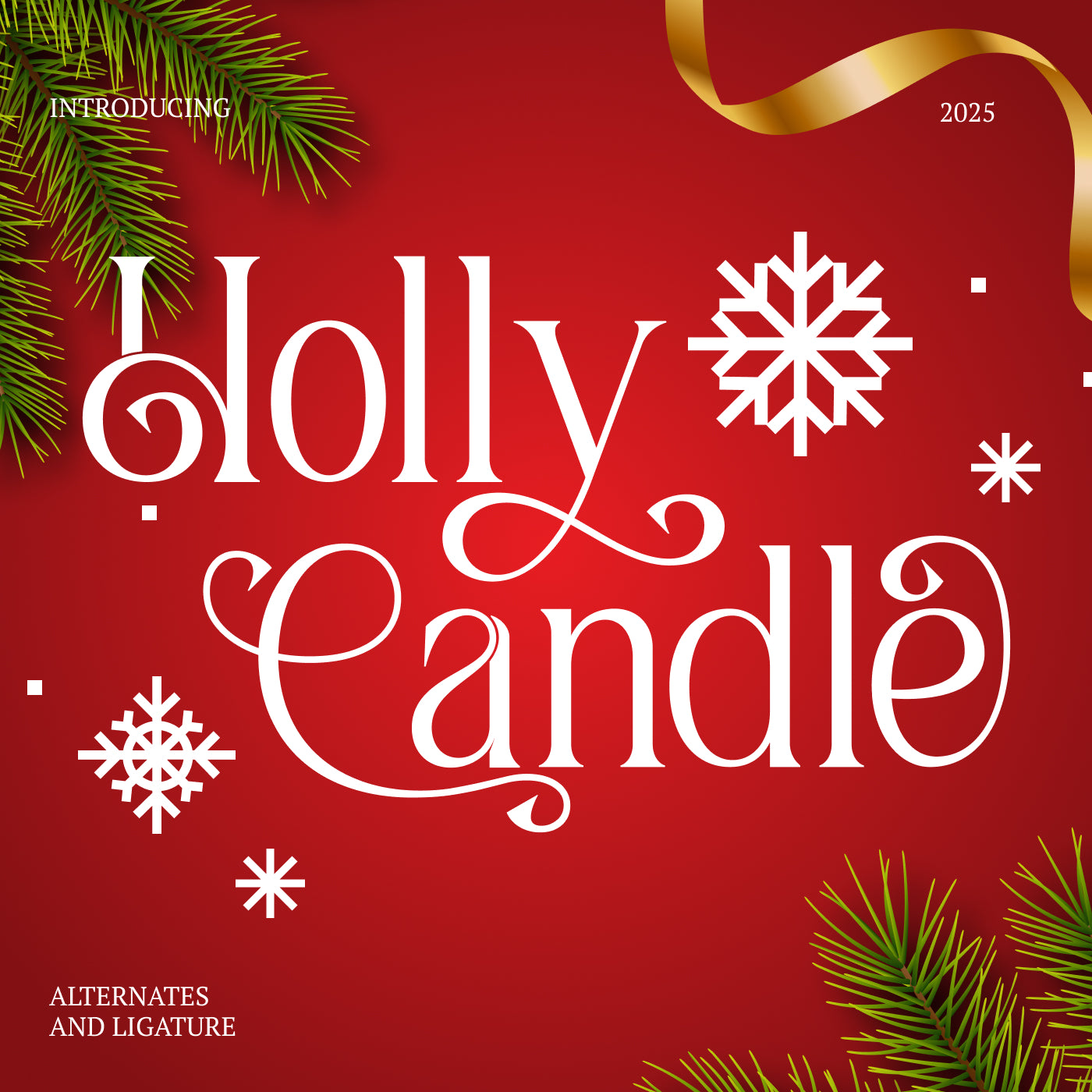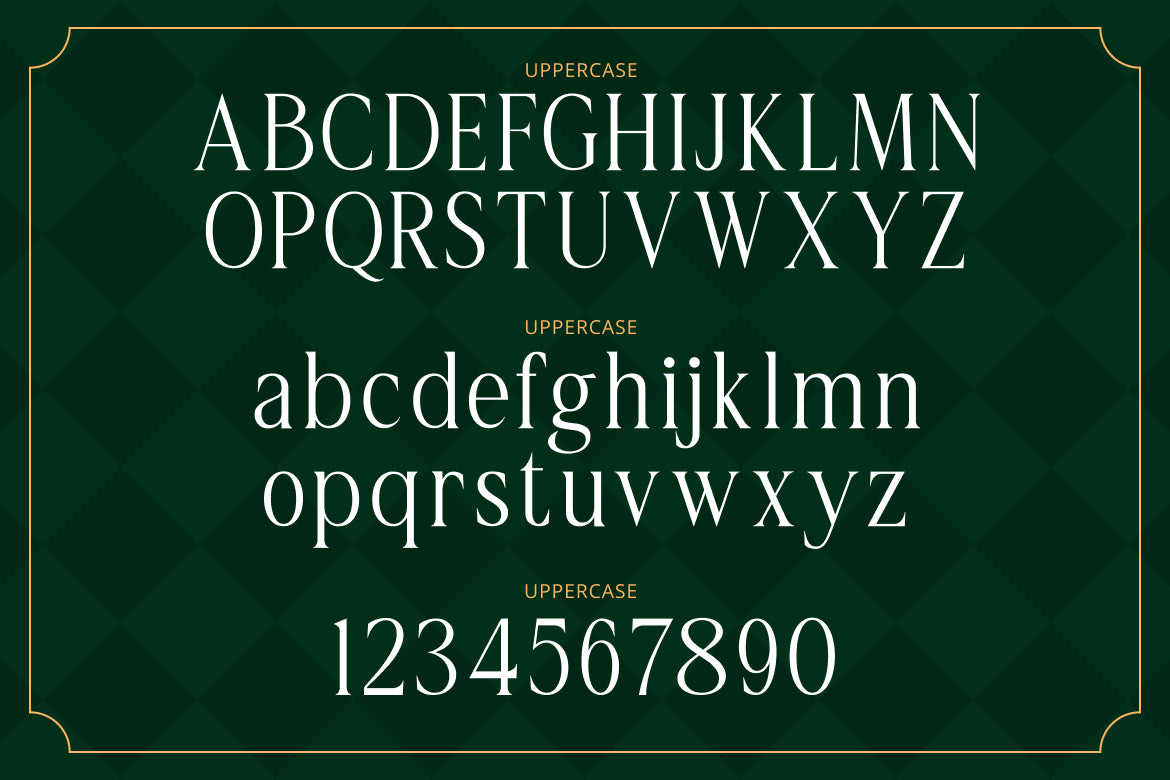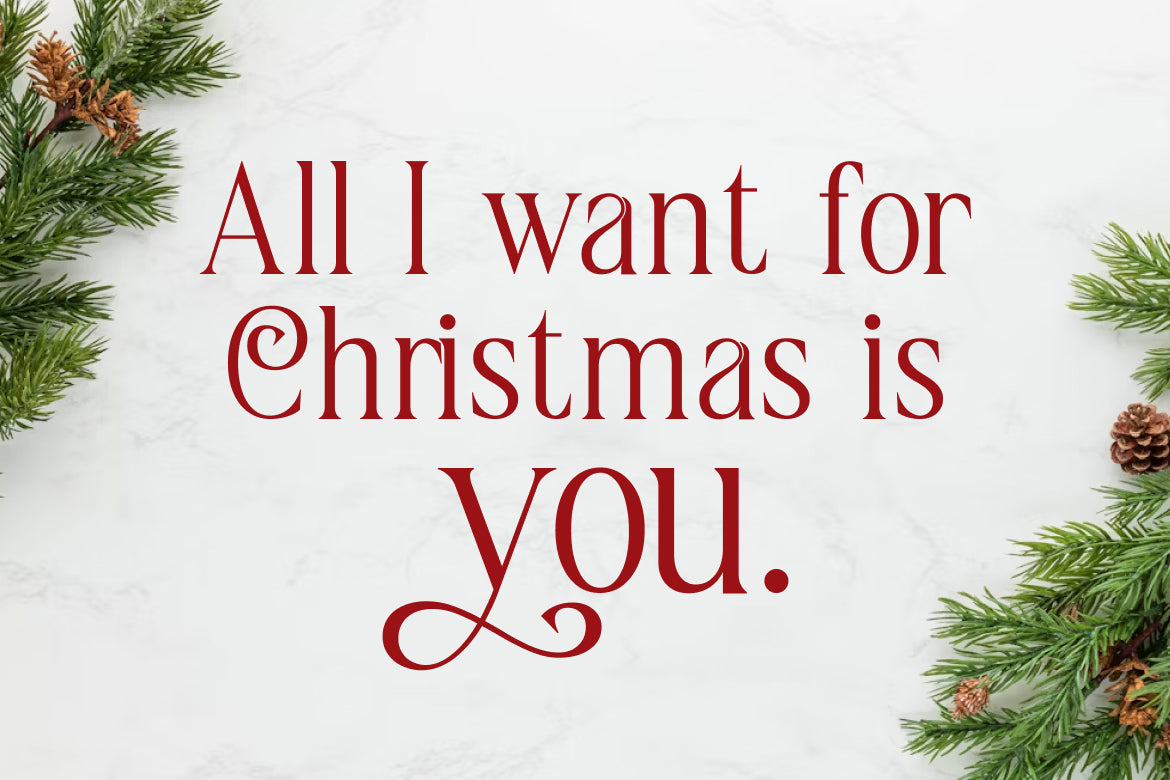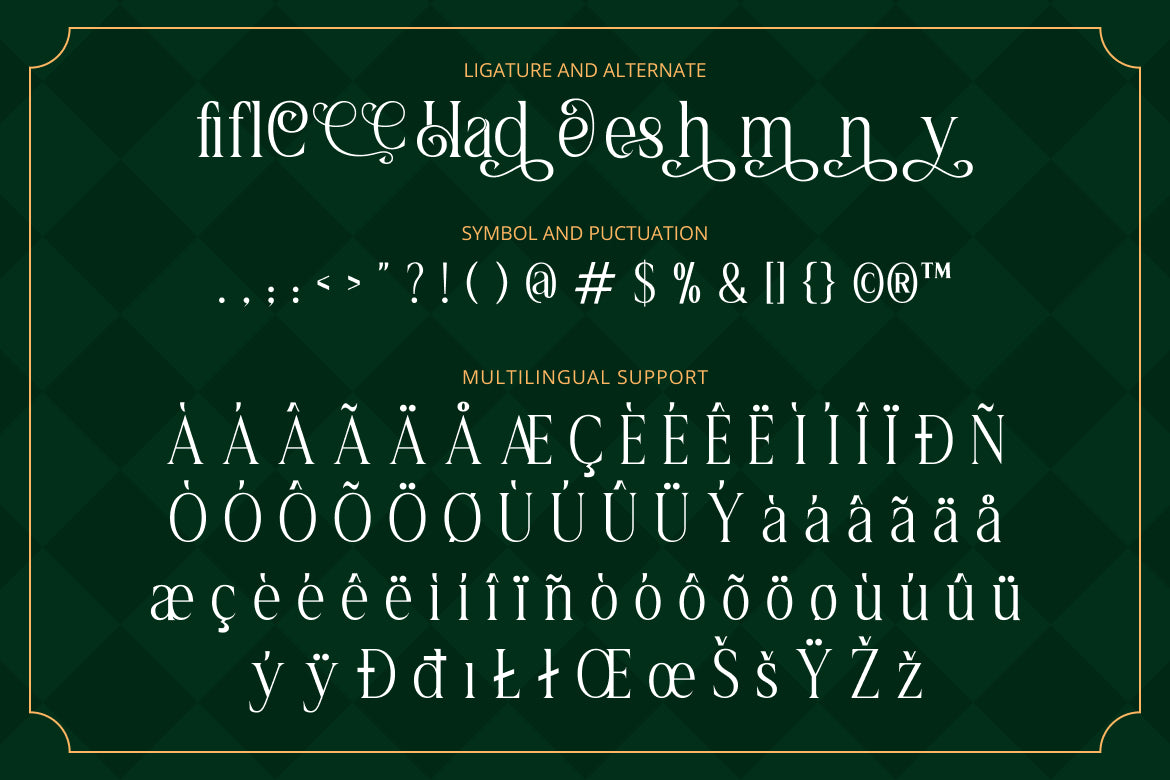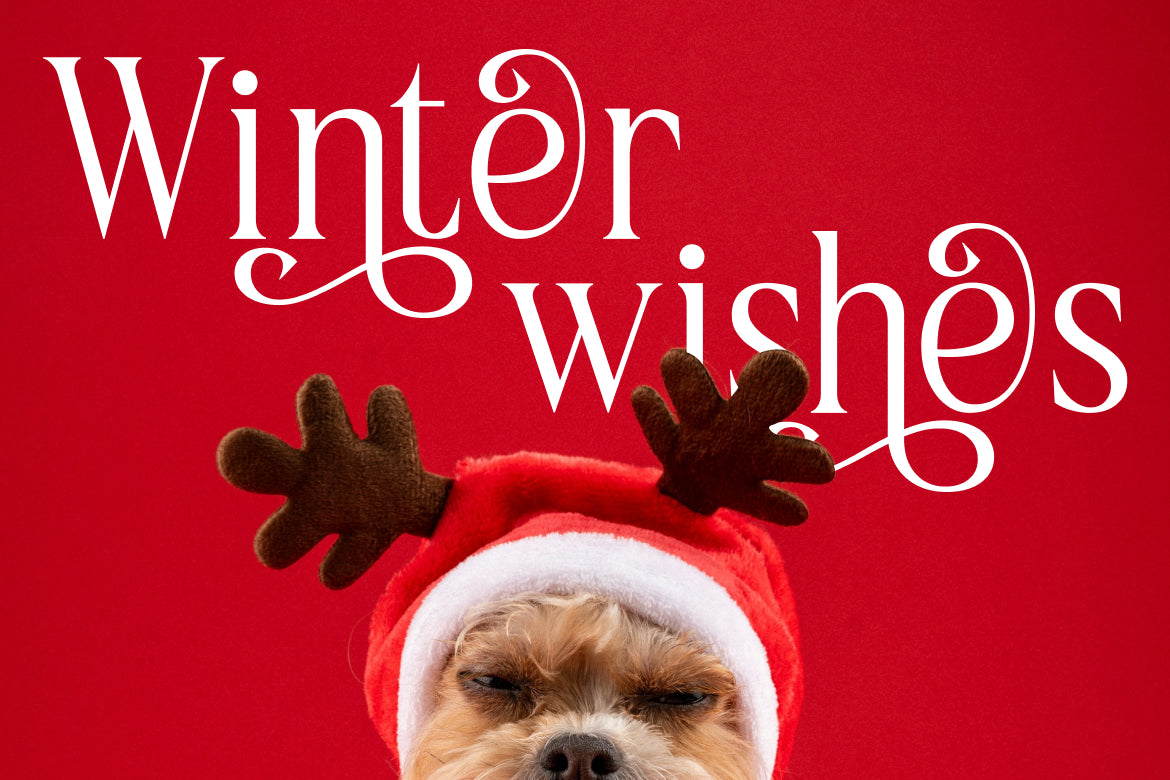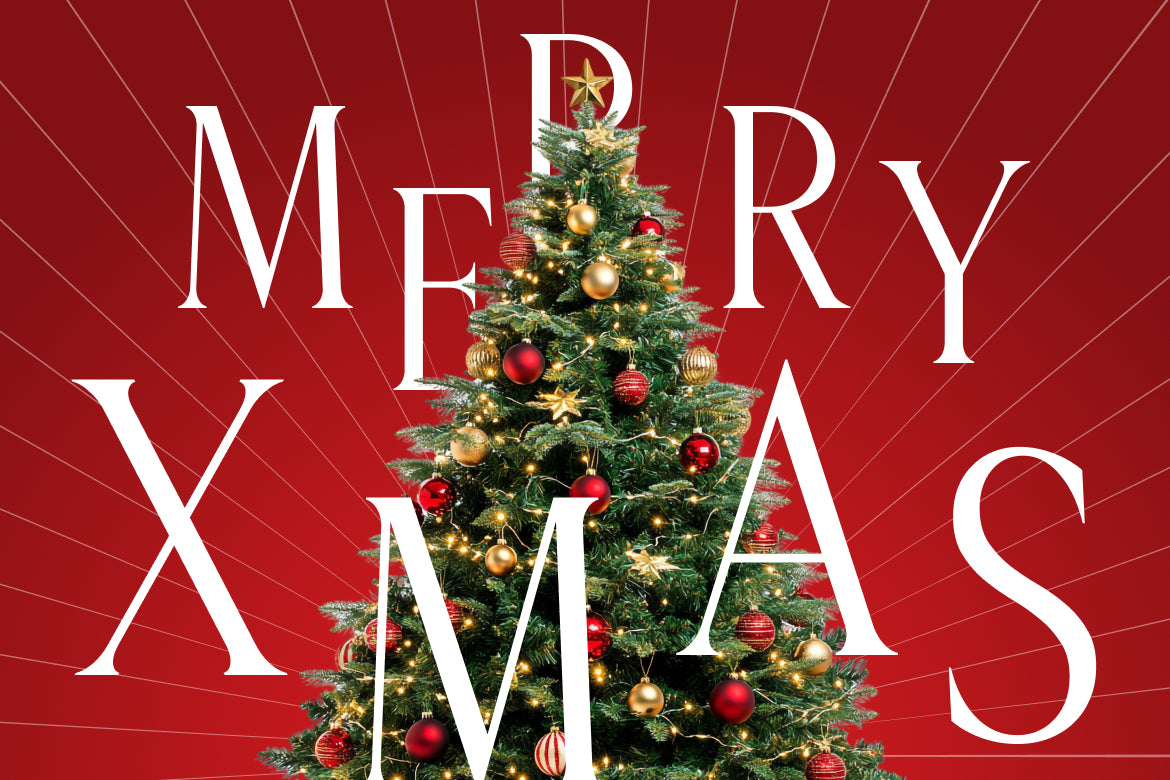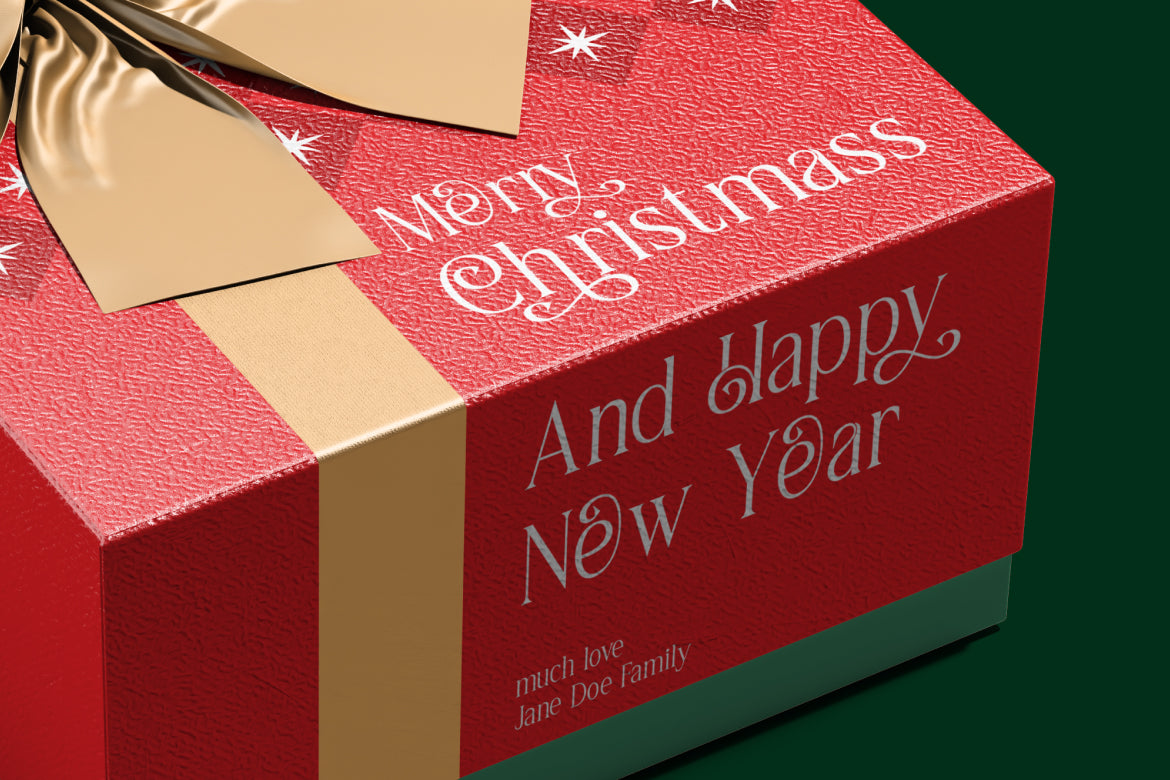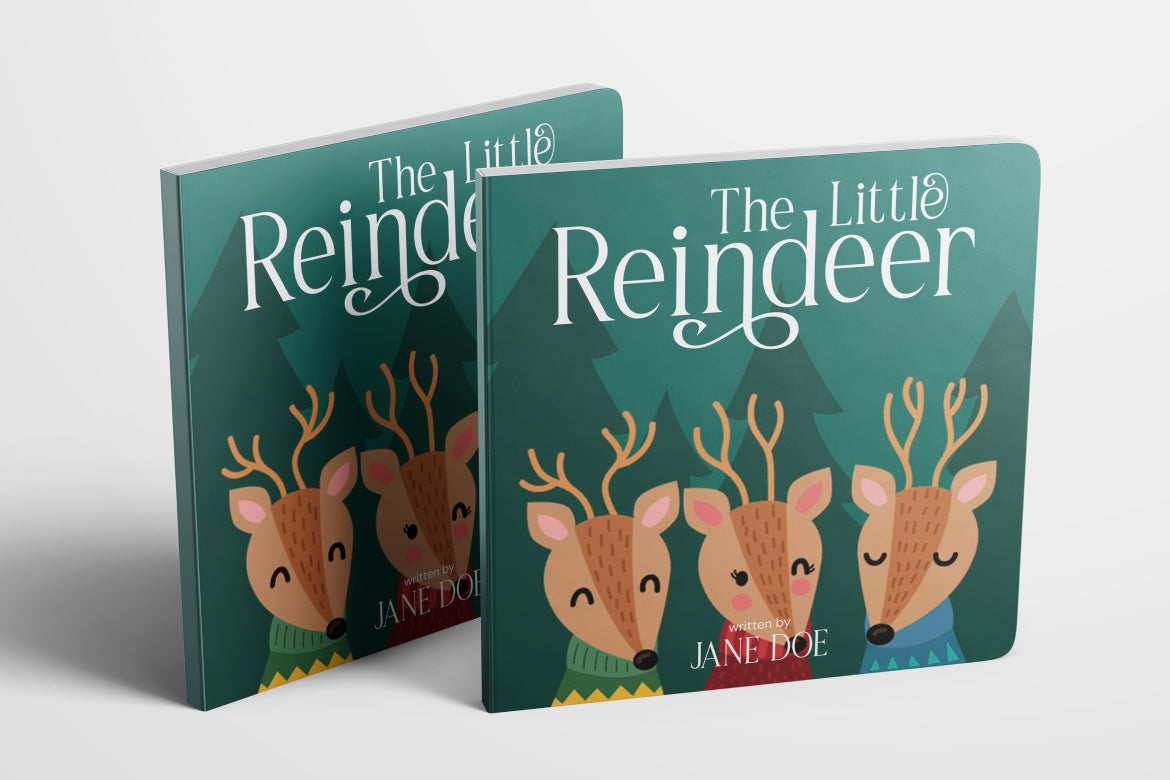
Holly Candle Christmas Font
Holly Candle is a refined, elegant, and beautifully festive serif typeface created to elevate holiday-themed designs with a touch of sophistication and timeless charm. Every letterform is crafted with care featuring graceful high‑contrast strokes, delicate curves, and a harmonious rhythm that reflects classic typography while bringing a warm seasonal spirit. The typeface includes a wide range of thoughtfully designed swash alternates and decorative ligatures, allowing designers to add expressive flourishes and create uniquely styled compositions with ease.
Relevance and Use Cases is perfect for Christmas cards, winter celebrations, gift packaging, product branding, boutique logos, greeting prints, social media graphics, seasonal advertisements, cozy invitations, and editorial spreads that require a refined holiday aesthetic. Its ornamental nature adds personality without sacrificing balance, making it a perfect choice for designers who want their work to radiate warmth, tradition, and festive sophistication.
The Holly Candle Christmas Font is an elegant serif typeface designed with high-contrast strokes and delicate curves, featuring uppercase and lowercase letters, numerals, punctuation, ligatures, and alternate characters. Available in OTF, TTF, and WOFF formats, it offers multilingual support and is suitable for various holiday-themed design applications.